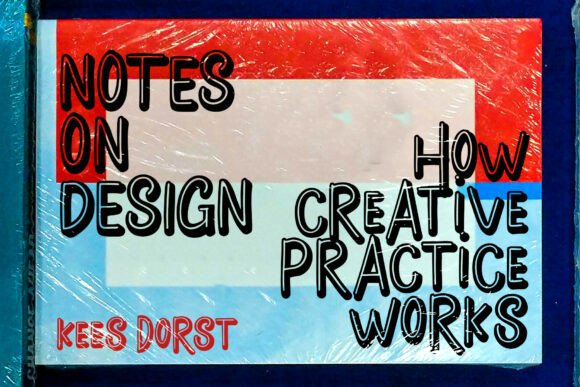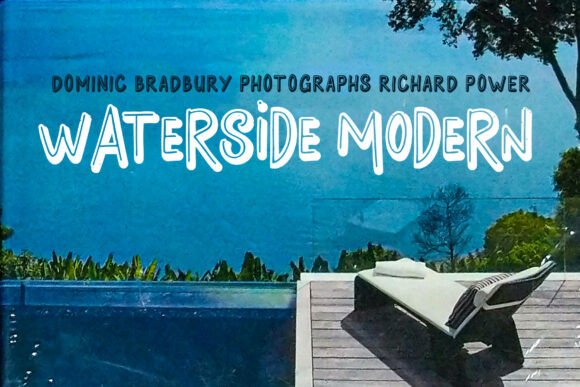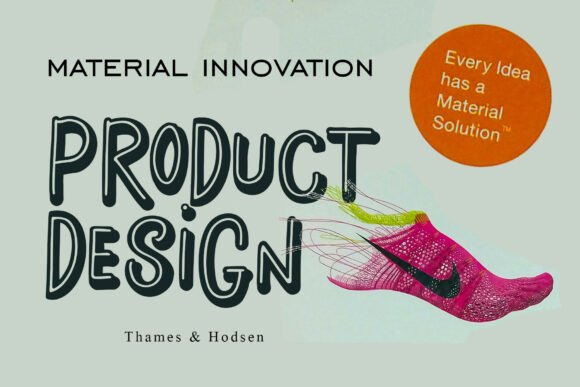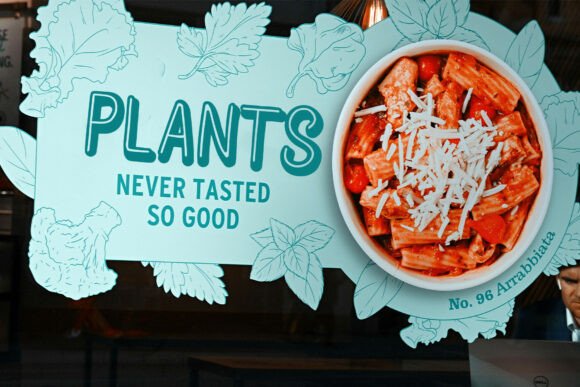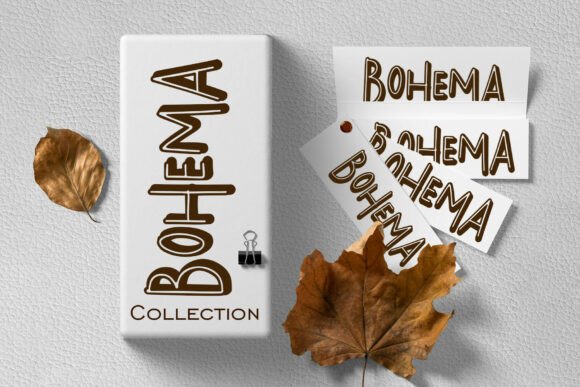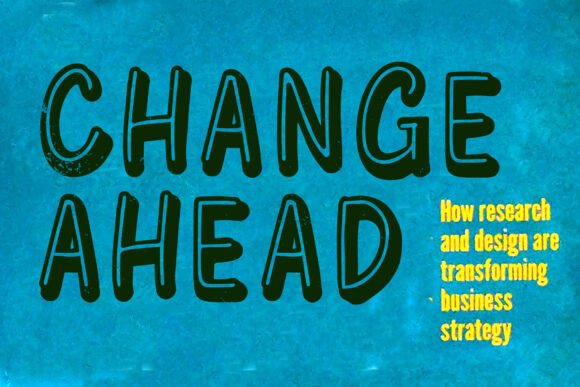
Introduction to Hendak Font
As you sit down at your desk, surrounded by scattered papers and half-finished projects, you’re suddenly hit with an idea. It’s a spark of creativity that ignites a fire within you, and you can’t wait to bring it to life. You grab your computer and start brainstorming, but something’s missing – a font that truly captures the essence of your vision. That’s where the Hendak Font comes in, a beautifully crafted typeface that’s perfect for designers who crave a high-quality, unique design resource.
With its whimsical lines and strokes, the Hendak Font is a free download that’s waiting to elevate your creative project. Whether you’re working on a personal or professional design, this font’s transparent background and elegant style will add a touch of sophistication to your work. And the best part? It’s available for free, so you can unlock your full potential without breaking the bank.
Key Features of Hendak Font
- High-quality, free download font ideal for creative projects
- Unique design with a transparent background, allowing for versatile usage
- Includes a comprehensive character set with a wide range of glyphs and ligatures
- Designed to be a valuable design resource for graphic designers, artists, and writers
Honest Review: Hendak Font
I recently had the opportunity to try out the Hendak Font, and I must say, it’s been a game-changer for my creative projects. The font is free to download, which is a huge plus for designers on a budget.
One of the standout features of the Hendak Font is its high quality. The font is crisp and clean, making it perfect for use in logos, branding, and other design elements where clarity is key.
✨ Another feature that works well is the transparent background option, which allows for seamless integration with images and other design elements.
Here are some of the key features of the Hendak Font:
- Perfect for logos, branding, and other design elements
⚠️ One limitation of the Hendak Font is its limited character set. While it’s perfect for short text, it may not be the best choice for longer bodies of text.
Overall, I’m really impressed with the Hendak Font. It’s a fantastic design resource that’s perfect for creative projects. I’d definitely recommend it to fellow designers looking for a high-quality, free font.
Hendak Font
Hendak Font is a versatile font that can be used in various creative projects, such as:
- Brochure design
- Business card design
- Infographic design
Tips for Getting the Most Out of Hendak Font
To get the most out of Hendak Font, consider the following tips:
- Use it on a transparent background for a clean and modern look.
- Pair it with other fonts for a unique and creative design.
- Experiment with different font sizes and colors to add visual interest.
Alternatives to Hendak Font
Montserrat is a high-quality, sans-serif font perfect for creative projects. It’s free to download and offers a transparent background, making it ideal for graphic designers. Use Montserrat for headings and titles in modern designs. Compared to Hendak Font, Montserrat has a more geometric and sleek feel, making it suitable for urban and minimalist designs.
Open Sans is a free, high-quality font ideal for body text and headings. It’s designed to be highly legible, even at small font sizes, making it perfect for digital design projects. Use Open Sans for creative projects requiring a clean and modern look. Compared to Hendak Font, Open Sans is more versatile and can be used for a wide range of design styles, from minimalist to bold and playful.
Does Hendak Font have a transparent background?
Yes, Hendak Font features a transparent background, making it ideal for use on images, logos, or other design elements where a clear background is necessary. This feature is particularly useful for designers working on creative projects that require a high level of visual precision.